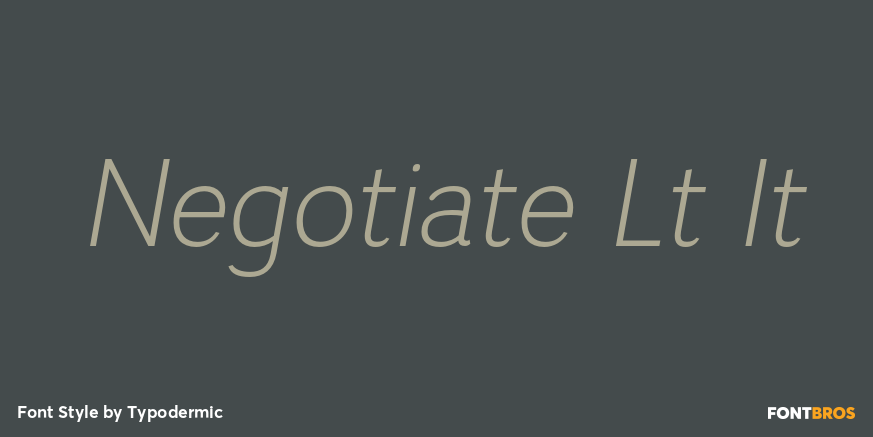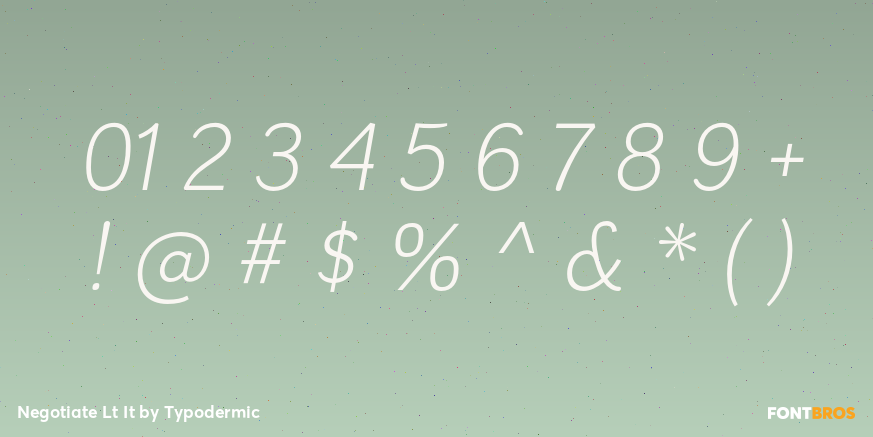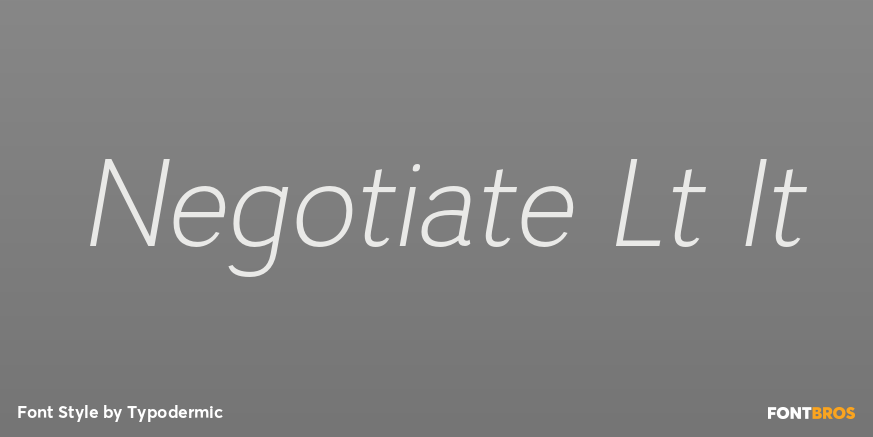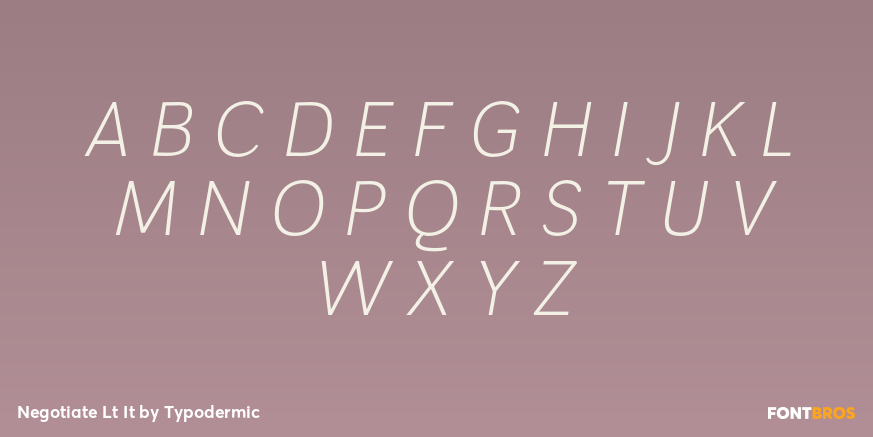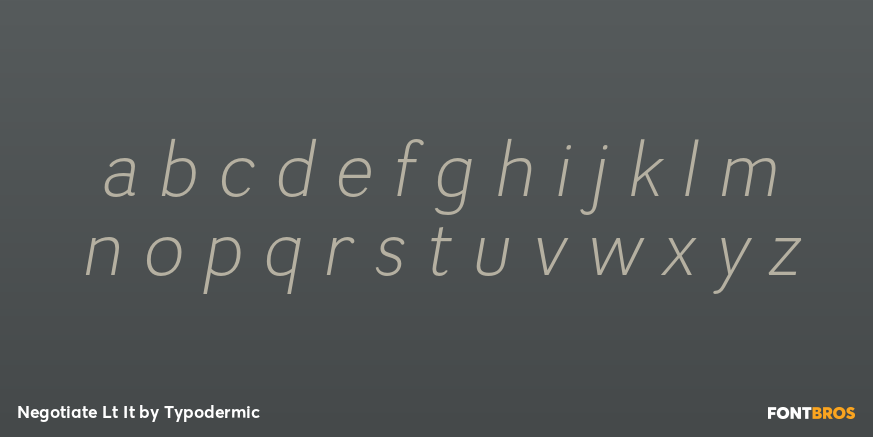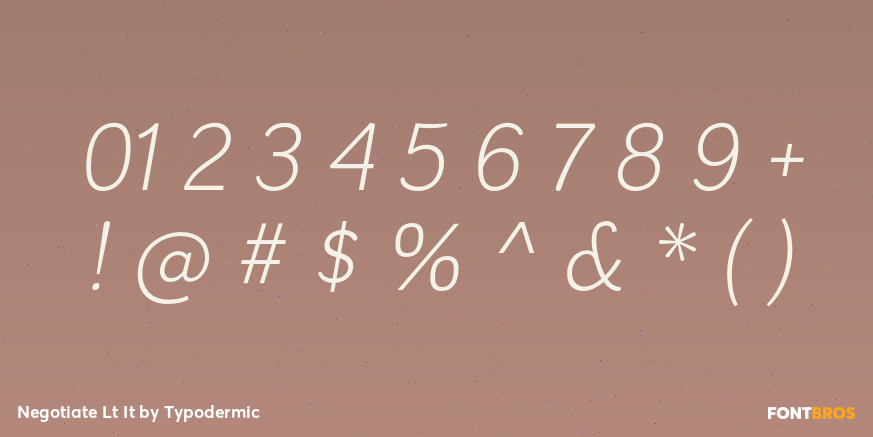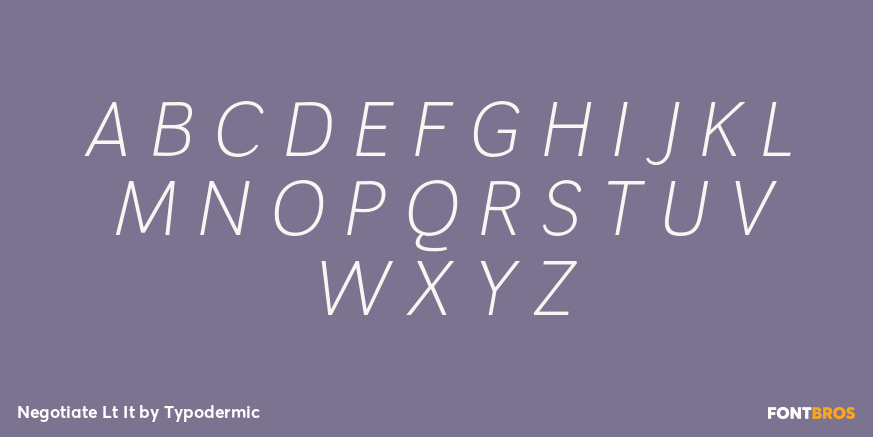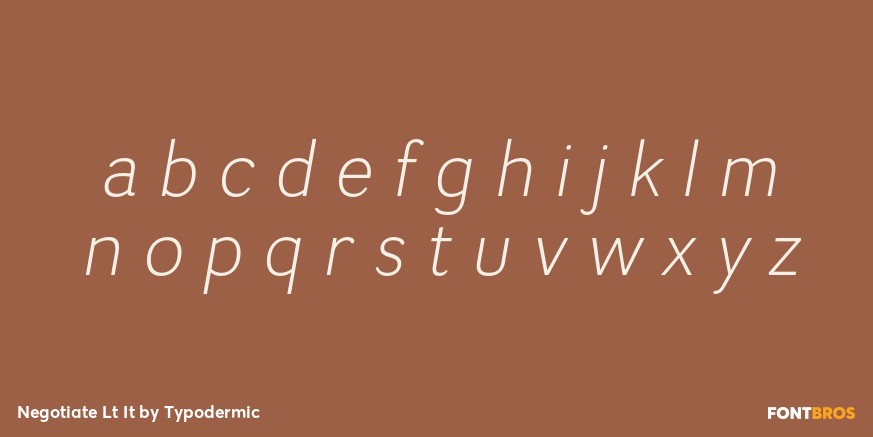
Negotiate Lt It
Negotiate is built for that middle ground. Its forms balance flat and rounded terminals, giving the text a small amount of tension without turning it into a display effect. The result feels organized but not mechanical, approachable without becoming soft or casual. Its weights, matching italics, and oldstyle figures give designers room for headings, quotations, captions, statistics, timelines, and sustained prose within one visual system.
Infrastructure public consultation is a particularly strong setting. Transmission upgrades, substations, offshore-grid connections, battery-storage developments, water projects, and other large systems generate route-option brochures, community consultation boards, environmental summaries, landowner information packs, project FAQs, meeting presentations, construction updates, and consultation reports. Negotiate can keep technical diagrams and maps connected to readable explanatory text without making the material look like either advertising or bureaucracy.
Data-center and AI-infrastructure development creates a similar communication problem. New campuses may need to explain electricity demand, water use, noise, land requirements, grid connections, construction phases, and local benefits to governments and neighboring communities. Negotiate can work across planning-consultation decks, community websites, water-use explainers, energy diagrams, mitigation summaries, permitting material, town-hall boards, and local-impact reports where credibility depends on clarity rather than technological spectacle.
Urban redevelopment and housing projects extend the same role into neighborhoods. Station-area plans, mixed-use districts, housing developments, public-realm upgrades, and major masterplans need materials that move between architectural renderings, maps, timelines, policy explanations, and resident feedback. Negotiate suits consultation booklets, workshop boards, planning summaries, tenant information, design-guideline documents, and public exhibitions.
Climate adaptation adds another layer of complexity. Flood protection, stormwater systems, coastal resilience, heat planning, and water-security projects combine engineering with public policy and everyday life. Negotiate can handle resilience strategies, neighborhood adaptation plans, risk explainers, project boards, preparedness guides, and investment summaries without making every page feel like an emergency notice.
Standards, policy, and industry-consensus publishing provide a quieter but equally natural role. Technical roadmaps, consultation papers, interoperability frameworks, working-group reports, policy briefs, and industry-association publications often have to present complex information produced by several stakeholders.
Negotiate is most useful for the layer between a project’s identity and its raw technical documentation: the reports, consultations, briefings, and explanatory material that have to make complicated decisions understandable without overselling them.